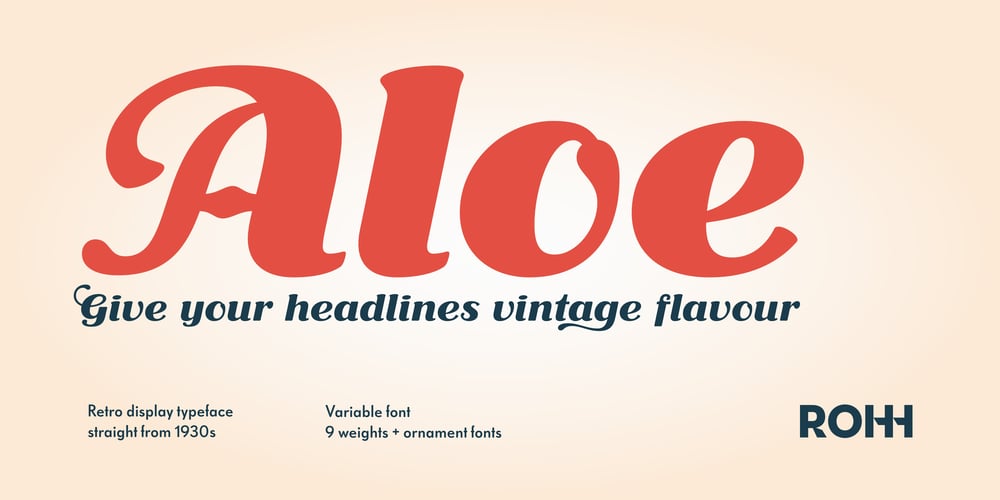
Aloe Font Family was designed by Roch Modrzejewski and published by ROHH. Aloe contains 19 styles and family package options. Aloe is unapologetically old-fashioned. Like your dad. It is authentic, soft and not interested in modern simplicity at all—it feels like a warm hug from the past.Inspired by the elegant, graceful headlines from 1930’s Polish newspapers, Aloe is all about charm, nostalgia, and a dash of whimsy. Its retro flair pairs perfectly with minimalist classics like Paneuropa 1931, creating a delightful time-traveling effect.With a generous dose of ornaments and swashes, Aloe’s allure shines even brighter. It’s ideal for enticing menu cards, romantic wedding invites, a headline that demands attention or retro branding that feels natural, with just the right touch of magic.Key Features• 9 weights• variable font• tons of creative swashes• playful ornaments• over 900 effortlessly flowing glyphs• Extended Latin language support